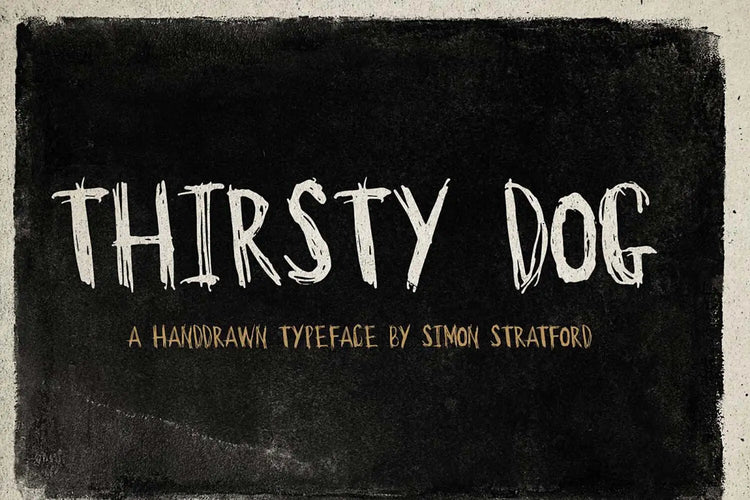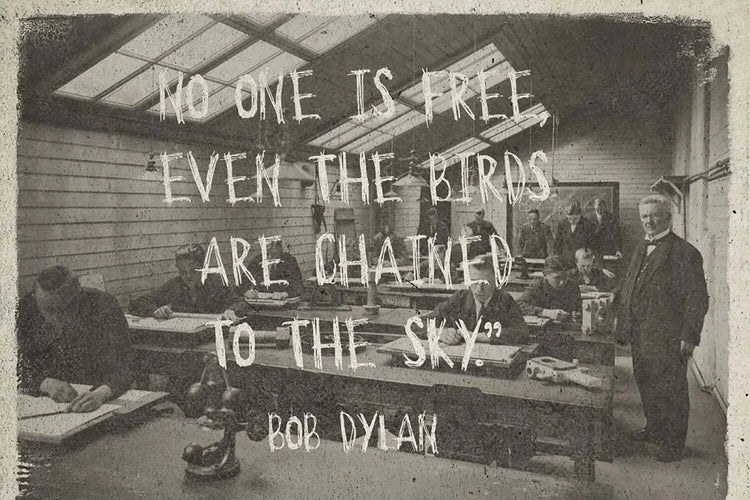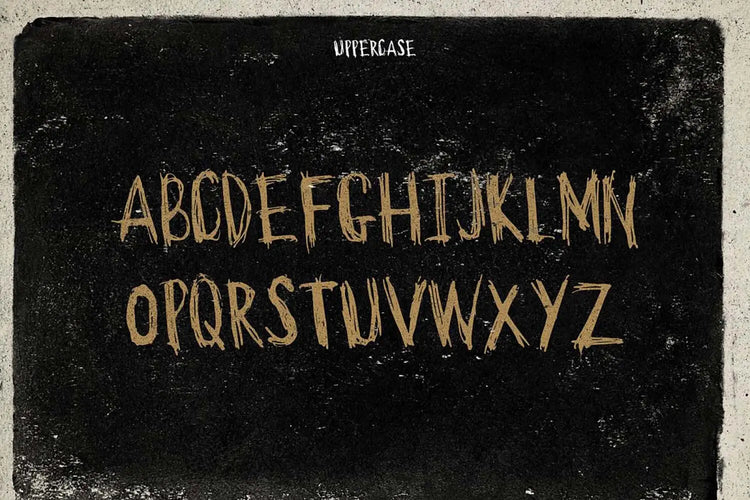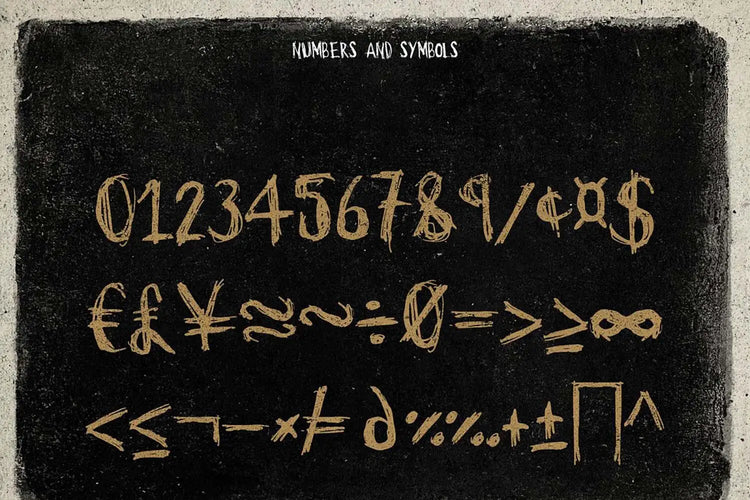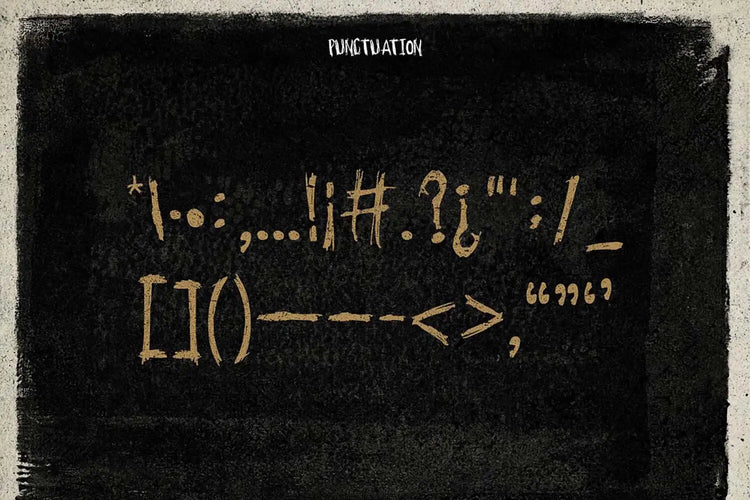
Thirsty Dog — Messy Handwritten Display Font
About Thirsty Dog
Thirsty Dog is a messy, spontaneous display typeface! It was created in a hurry, it's untidy and barely legible. 100% handmade.
It carries a distinct and deliberate grunge aesthetic akin to the rugged allure of a weathered rock star.
Thirsty Dog also has a touch of horror about it. Its scratchy appearance is like it's been conjured from the darkest corners of my imagination.
If the Thirsty Dog font were a celebrity
If the Thirsty Dog font were a celebrity, it would be actor Johnny Depp. Just as Johnny Depp has often portrayed eccentric and darkly intriguing characters on screen, the font embodies a similar unconventional persona.